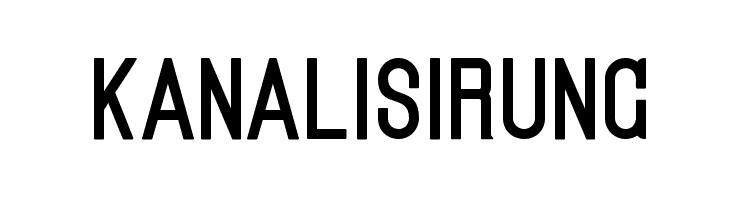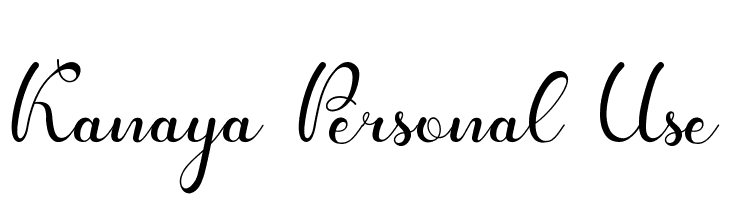
A festive, ornament-themed decorative font perfect for holiday projects.
A bold serif font with angular serifs and a modern twist.
An elegant cursive font with ornate swashes and loops.
An elegant, flowing script font with interconnected characters and a sophisticated style.
A bold, textured font with a distressed, vintage appearance.
A bold, textured font with a speckled, weathered appearance.
A bold, brush-style font with an energetic and artistic appearance.
A bold, flowing script font with a handwritten style.
A whimsical, hand-drawn font with playful numerals and expressive special characters.
A bold, modern font with a unique blend of traditional and contemporary styles.
A dynamic, italic handwritten font with artistic flair.
A bold, handwritten font with a playful and energetic style.
A bold, handwritten font with a playful and chaotic style.
A playful, bold font with exaggerated curves and angles.
A bold, playful font with exaggerated curves and angles, perfect for creative projects.
A bold, italicized font with dynamic curves and a playful style.
A modern, geometric sans-serif font with clean lines and balanced proportions.
A playful, casual handwritten font with rounded, consistent strokes.
A playful, handwritten font with a casual and approachable style.
A playful, informal handwritten font with rounded, consistent strokes.
A whimsical script font with elegant swashes and flowing connections.
A whimsical handwritten font with elegant swirls and flowing lines.
A playful handwritten font with a casual, friendly style.
A modern, condensed font with geometric shapes and clean lines.
A modern, geometric, and condensed font with bold strokes and a futuristic style.
A modern, condensed, and light font with a minimalist design.
A bold, angular font with a futuristic and industrial aesthetic.
A decorative font with intricate flourishes and a modern twist.
An italicized, calligraphic font with bold, flowing strokes and a decorative style.
A decorative and bold font with intricate, cultural-inspired details.
An elegant script font with flowing, interconnected letters and ornate details.